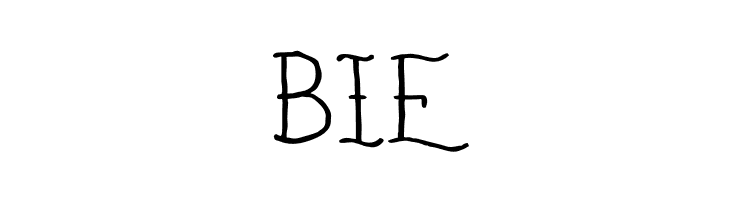
A playful, hand-drawn font with rounded edges and a semi-bold weight.
A playful, semi-bold cursive font with smooth, fluid strokes.
( Fonts by Beyond Design - Ola Bjorling )
A futuristic, bold outline font with rounded, continuous lines.
( Fonts by Rian Dryana )
A playful, bold outline font with a bubbly, inflated appearance.